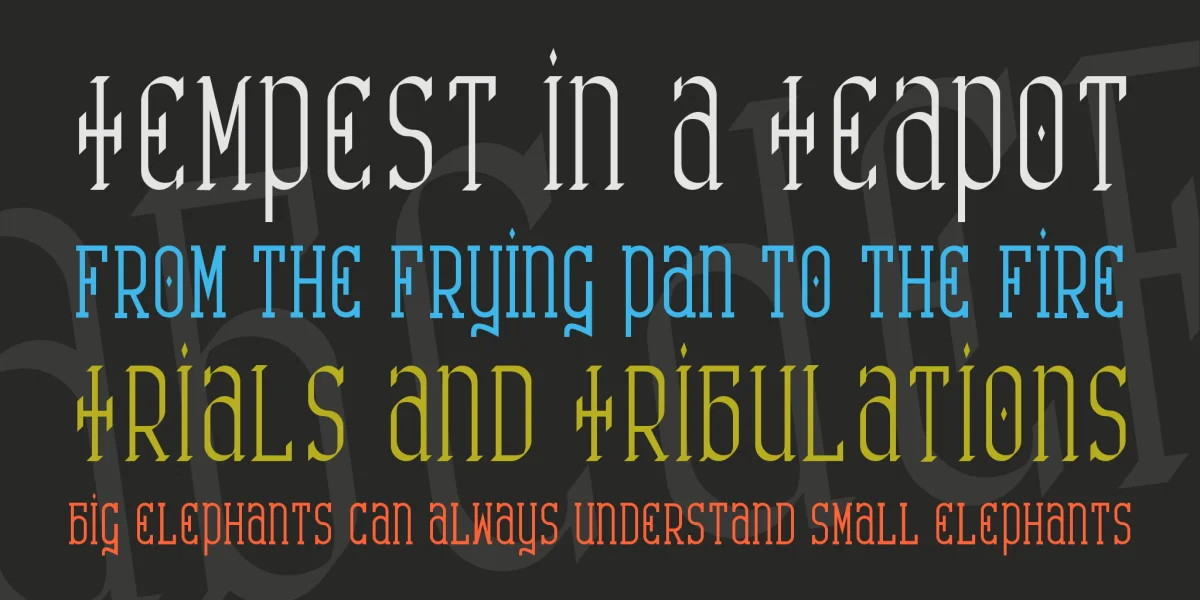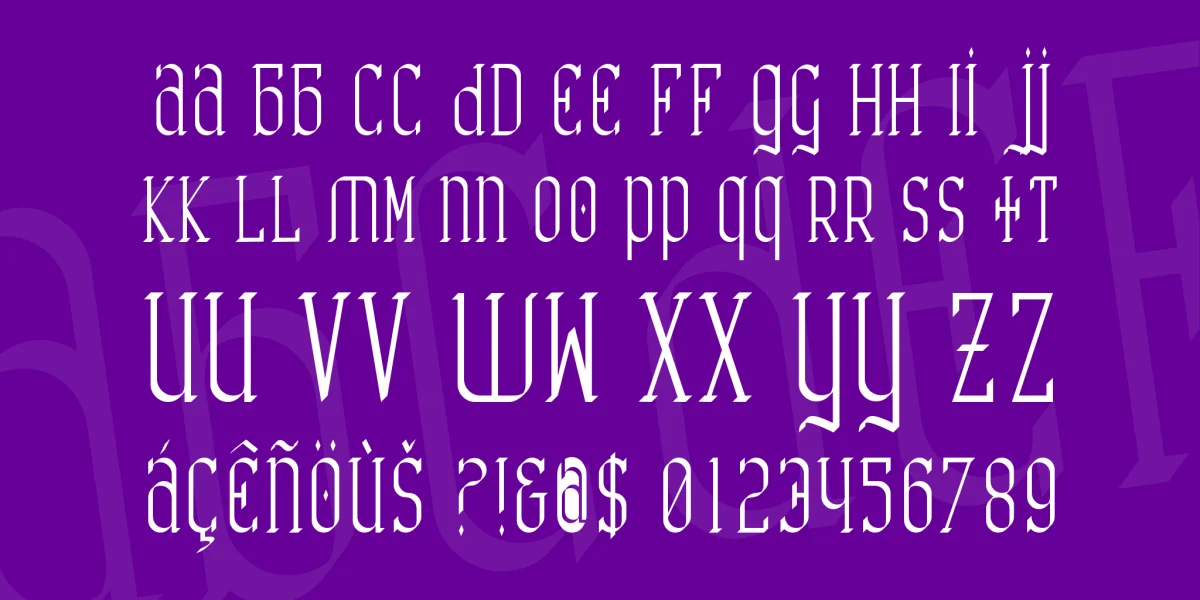
Dignified gothic font for inscriptions and the likes. The capital letters are not intended for use as capitals, but simply offer alternate letter forms in some cases.
Includes two faces: calligraphic pen and solid line.